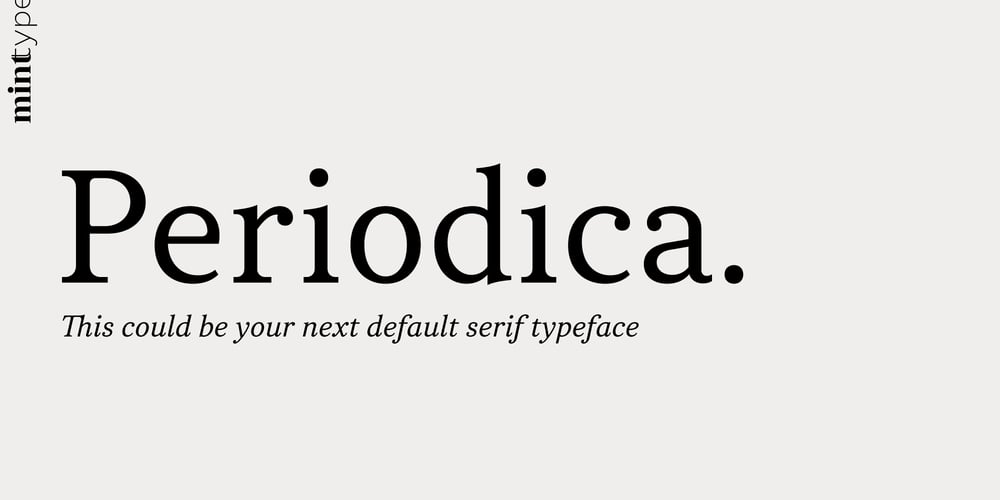
Periodica Font Family was designed by Andriy Konstantynov and published by Mint Type. Periodica contains 18 styles and family package options. Periodica is a transitional serif typeface with a deliberately neutral character. Its moderate x-height along with moderate contrast makes it a perfect fit for any type of long paragraph texts, on any medium―from non-fiction books to office documents, to on-screen longreads. It has a strong potential to become your next default serif typeface.Periodica consists of 18 fonts with 9 weights and corresponding true italics. The typeface supports approximately 130 languages, including the basic Cyrillic, and contains small caps, 5 sets of digits, and other numerous OpenType features.